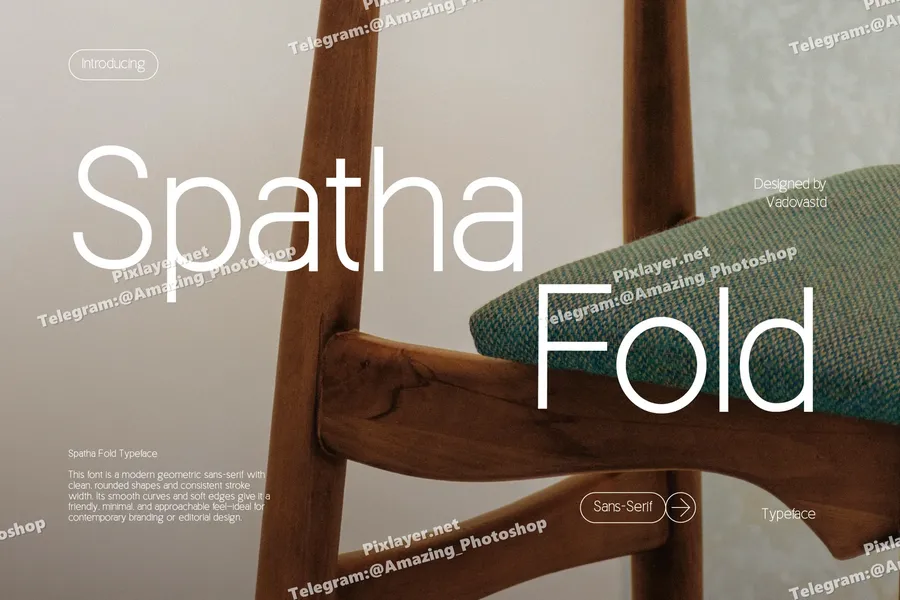
Spatha Fold is a clean, geometric sans-serif typeface crafted for minimalism and contemporary design. Its smooth curves and modern spacing make it ideal for editorial layouts, interior design presentations, branding concepts, and visual identity systems. Whether used in home decor ads or minimalist posters, this font communicates clarity, elegance, and precision. Spatha Fold enhances every project with a professional, soft-modern aesthetic tailored for simplicity and refinement.
Suitable For: Interior branding, furniture ads, editorial design, minimalist posters, product catalog, modern web UI, clean signage, design studio, lifestyle magazine, home decor label, ad campaign, branding concept, creative display, visual identity, showroom promo, architecture portfolio, print layouts, product packaging, elegant flyers, modern typography